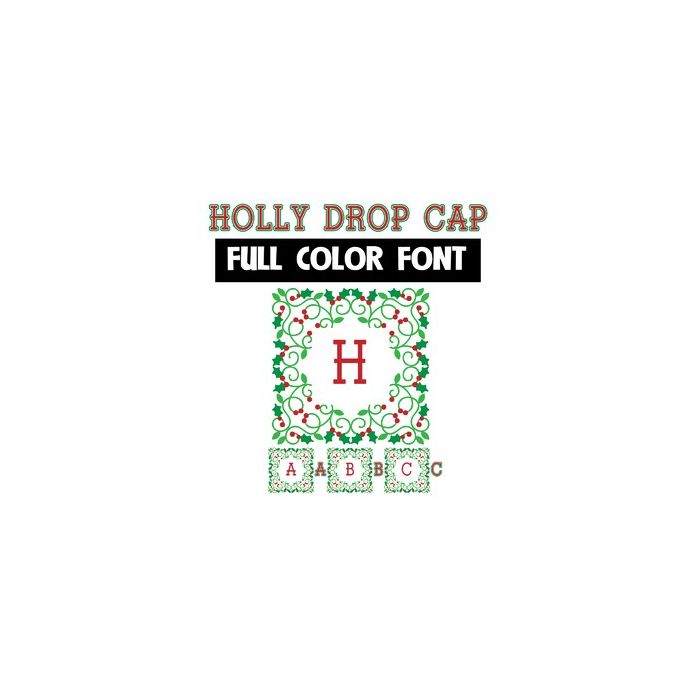
This monogram font features beautiful, holly-adorned, ornate drop caps/ornamental monograms for the uppercase. The lowercase is w/o ornaments. This font works best for titles, displays, posters and more. Please note color fonts will show as black in non compatible programs. This font type is compatible with Silhouette Studio